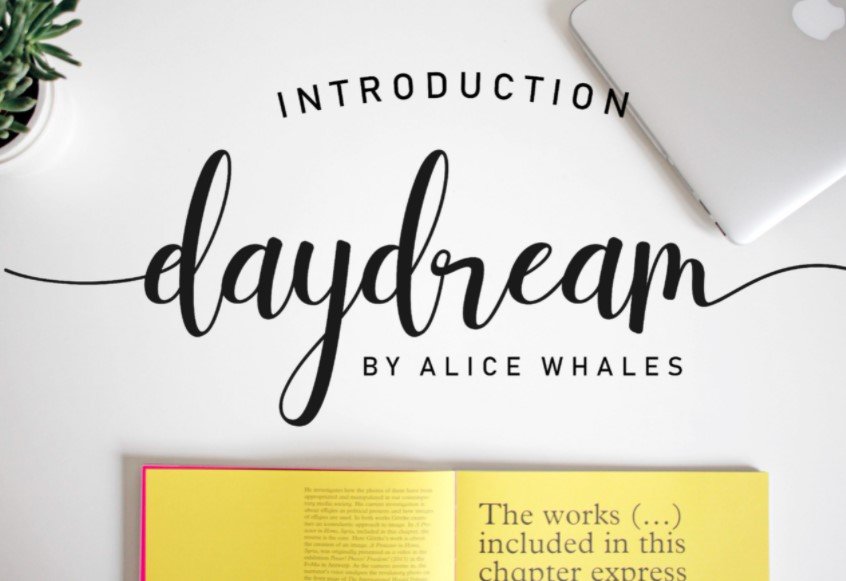
This is one of the best readable handwritten typefaces that has beautiful characters, amazing glyphs, and attractive ligatures which will look smart in all
Hey there, showcasing the coolest, a great, and awesome typeface featuring modern, fresh calligraphic designs and styles. Introducing Daydream Script Font, a meticulously planned and cool typeface crafted and shared by Alice Whales.
This is one of the best readable handwritten typefaces that has beautiful characters, amazing glyphs, and attractive ligatures which will look smart in all designs that you will be going to build with this great font.